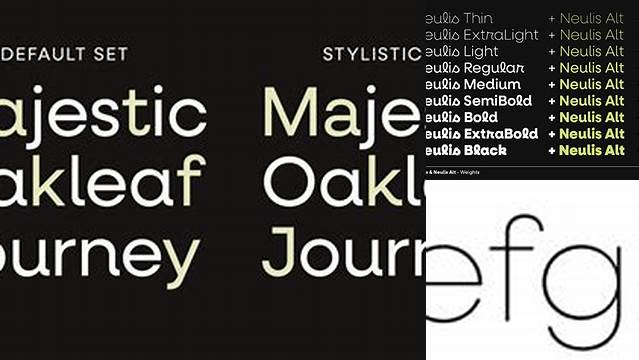
Neulis Neue Black Font: Free Download Guide
Are you looking for a bold, modern font to make your designs stand out? Look no further! The Neulis Neue Black font is a fantastic choice for various projects, offering a sleek and contemporary aesthetic. In this comprehensive guide, we'll dive into everything you need to know about Neulis Neue Black, including where to find it for free, how to use it effectively, and why it’s a favorite among designers. So, let's get started, guys!
What is Neulis Neue Black Font?
Before we get into the nitty-gritty of downloading and using this font, let's understand what makes Neulis Neue Black so special. Neulis Neue Black is a bold and impactful typeface characterized by its clean lines and modern appearance. It belongs to the sans-serif family, which means it lacks the small decorative strokes (serifs) that are common in fonts like Times New Roman or Garamond. This absence of serifs gives Neulis Neue Black a contemporary and minimalist feel, making it incredibly versatile for a wide range of applications.
Key Characteristics
- Bold Weight: The 'Black' in its name signifies its heavy weight, making it perfect for headlines, titles, and any text that needs to grab attention.
- Sans-Serif Design: Its sans-serif nature lends it a modern and clean look, ideal for digital and print media.
- Versatility: Neulis Neue Black works well in various design contexts, from branding and advertising to web design and editorial layouts.
- Readability: Despite its boldness, it maintains excellent readability, ensuring your message is clear and easily digestible.
Why Choose Neulis Neue Black?
Choosing the right font can significantly impact the success of your design. Neulis Neue Black offers several advantages that make it a popular choice among designers:
- Impactful Presence: Its bold weight ensures that your text commands attention, making it perfect for headlines, banners, and call-to-actions.
- Modern Aesthetic: The clean lines and sans-serif design give it a contemporary look that aligns well with modern design trends.
- Versatile Application: Whether you're designing a website, creating marketing materials, or working on a print project, Neulis Neue Black can adapt to various contexts.
- Professional Look: Using a well-designed font like Neulis Neue Black can instantly elevate the professionalism of your designs.